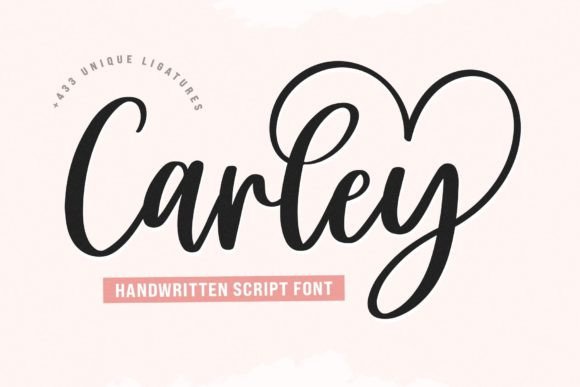
Introducing Carley Font: The Ultimate Romantic Calligraphy Typeface
Are you looking for a font that can add a touch of luxury and romance to your design projects? Look no further than Carley Font, a beautiful calligraphy typeface that is sure to impress. With its elegant and sweet characters that dance along the baseline, Carley Font is the perfect choice for anyone who wants to create stunning designs that exude sophistication and glamour.
What is Carley Font?
Carley Font is a romantic and sweet calligraphy typeface that is designed to add a luxury spark to any design project. It features characters that dance along the baseline, creating a sense of movement and fluidity that is sure to capture the eye. With its elegant and refined appearance, Carley Font is perfect for use in a variety of design projects, from wedding invitations and branding materials to packaging and advertising.
Key Features of Carley Font
So, what makes Carley Font so special? Here are just a few of its key features:
- Romantic and Sweet Design: Carley Font features a romantic and sweet design that is sure to add a touch of elegance to any design project.
- Ligatures and Glyphs: The font features a range of ligatures and glyphs that allow you to create stunning designs that are full of character and personality.
- Luxury Spark: Carley Font is designed to add a luxury spark to any design project, making it perfect for use in high-end branding and advertising materials.
Benefits of Using Carley Font
So, why should you choose Carley Font for your design projects? Here are just a few of the benefits of using this beautiful calligraphy typeface:
- Adds Elegance and Sophistication: Carley Font adds a touch of elegance and sophistication to any design project, making it perfect for use in high-end branding and advertising materials.
- Versatile: Carley Font can be used in a variety of design projects, from wedding invitations and branding materials to packaging and advertising.
- Unique and Creative: The font features a unique and creative design that is sure to help your designs stand out from the crowd.
In conclusion, Carley Font is a beautiful calligraphy typeface that is sure to add a touch of luxury and romance to any design project. With its elegant and sweet characters that dance along the baseline, Carley Font is the perfect choice for anyone who wants to create stunning designs that exude sophistication and glamour. Whether you’re a designer, artist, or simply someone who loves typography, Carley Font is a must-have font that is sure to inspire your creativity.
- What is Carley Font? Carley Font is a romantic and sweet calligraphy typeface that is designed to add a luxury spark to any design project.